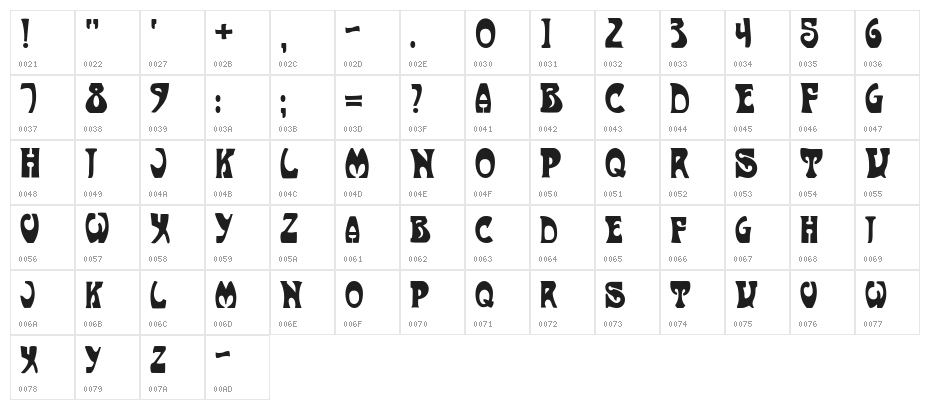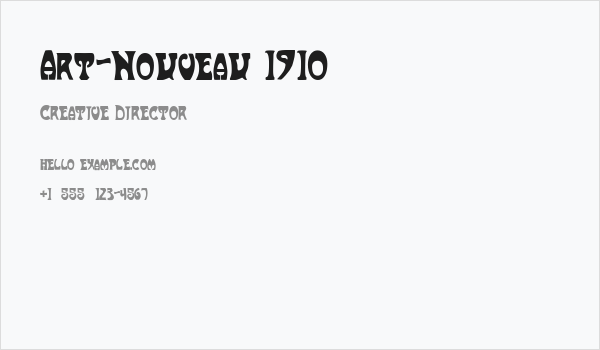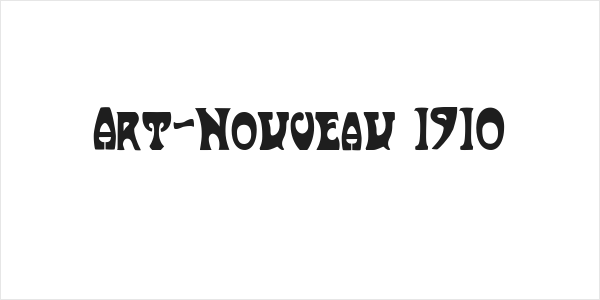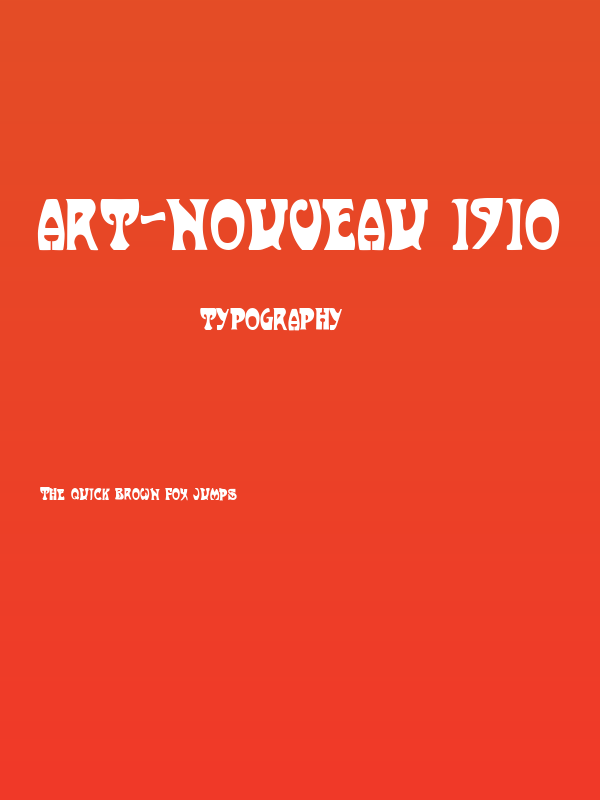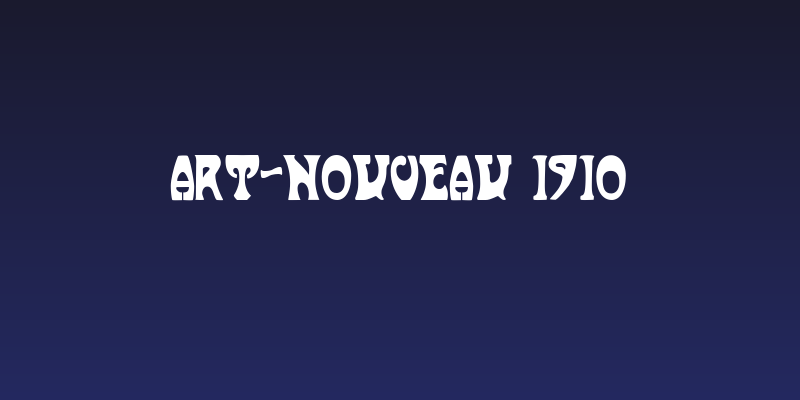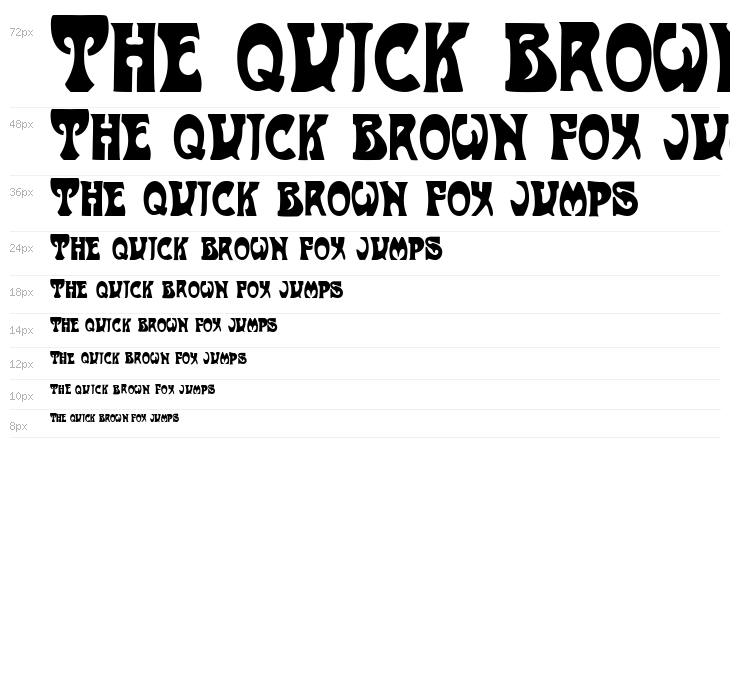
Art-Nouveau 1910 Font
Art-Nouveau 1910 Description
This font embodies the essence of the Art Nouveau movement, characterized by its flowing, organic shapes and intricate detailing. The letters are bold and feature unique curves and flourishes that give them a whimsical yet elegant appearance. The uppercase letters are particularly striking, with exaggerated serifs and decorative elements that evoke a sense of movement and fluidity. The numbers and special characters maintain this artistic style, ensuring a cohesive look across all glyphs. This font is perfect for projects that require a touch of vintage charm and artistic flair.
| Proposed Projects | Ideal for vintage posters, artistic invitations, branding for creative industries, and decorative signage. |